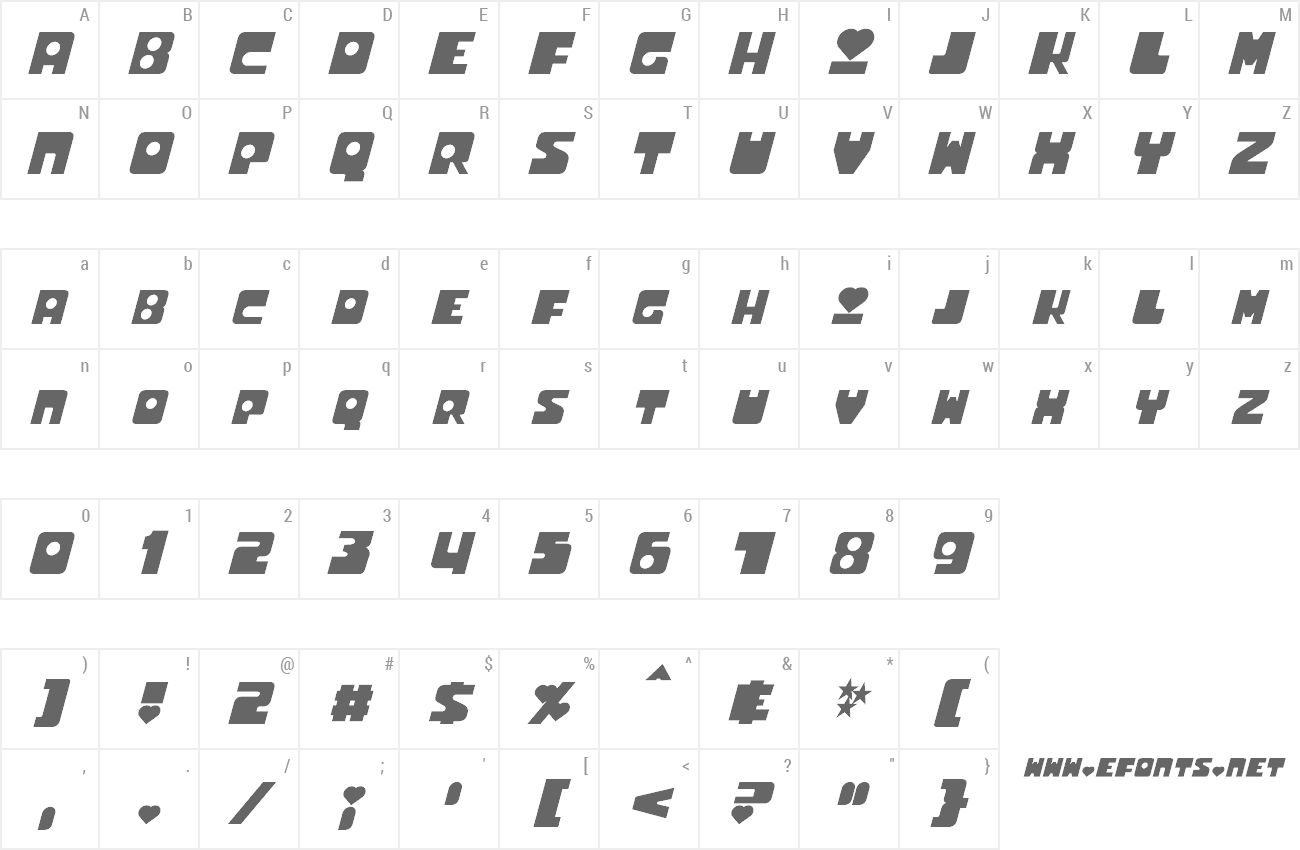
| Font name: | Utonium |
| Author: | Pixel Sagas |
| Note by Pixel Sagas | |
Utonium is a think, cartoon-like, “sloppy” typeface based on the title logo of the original Powerpuff Girls from Cartoon Network. Includes full alphabet, extended punctuation, euro. Includes regular, bold, italic, and bold-italic faces. Version 1.1 - Switch to OTF format - Spacing cleanup |